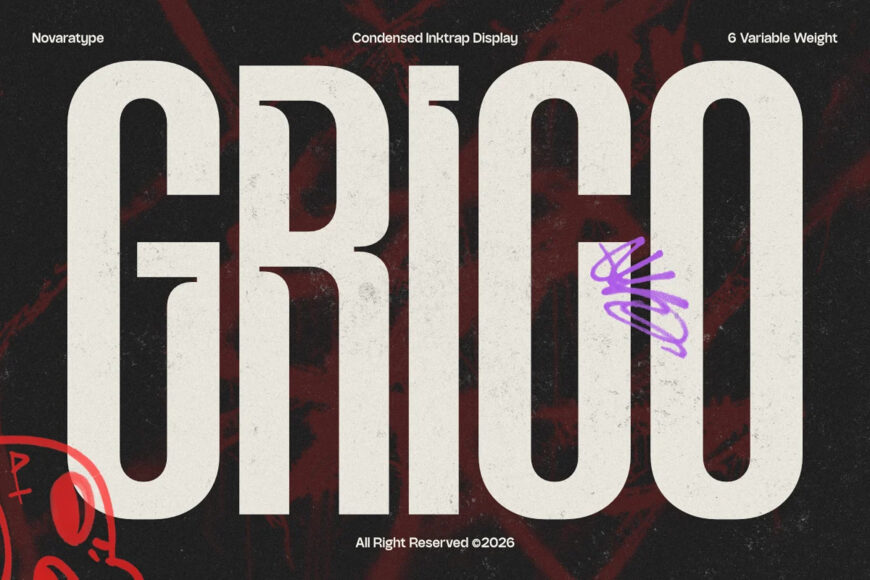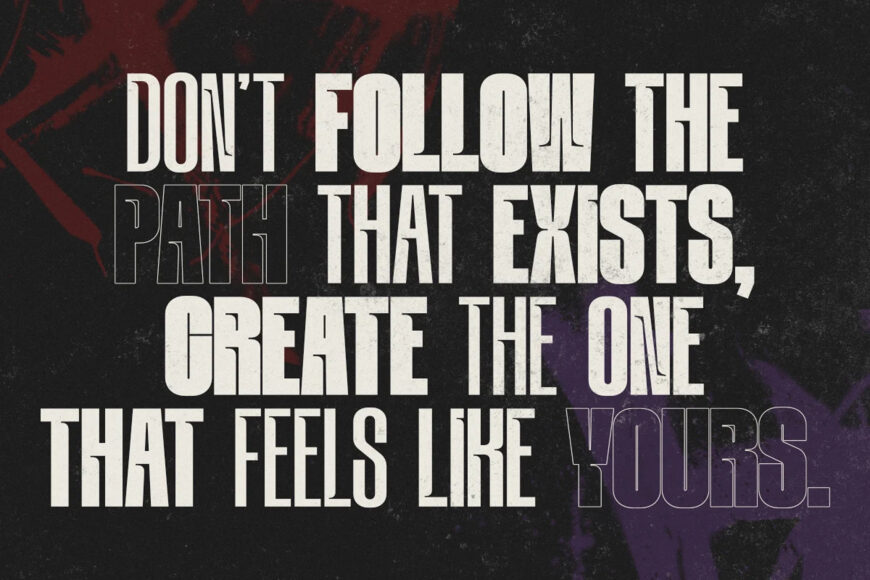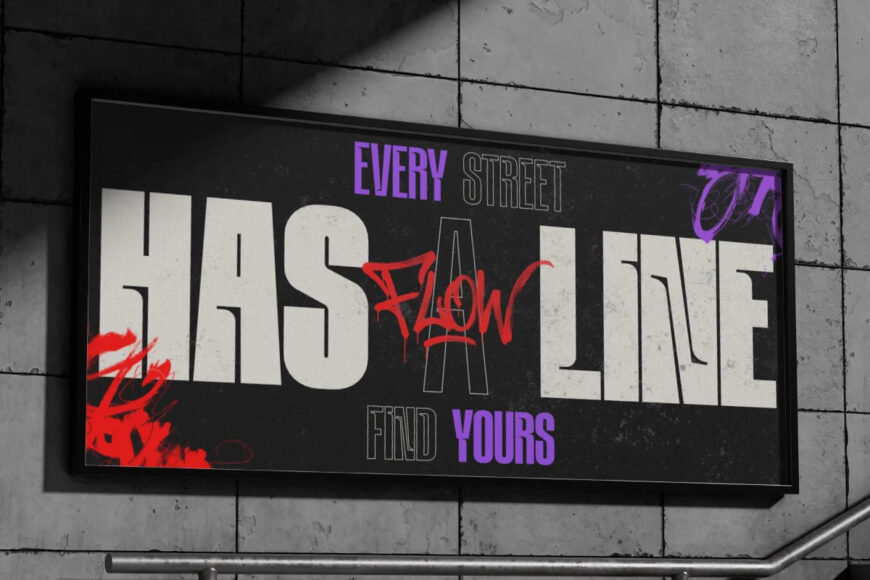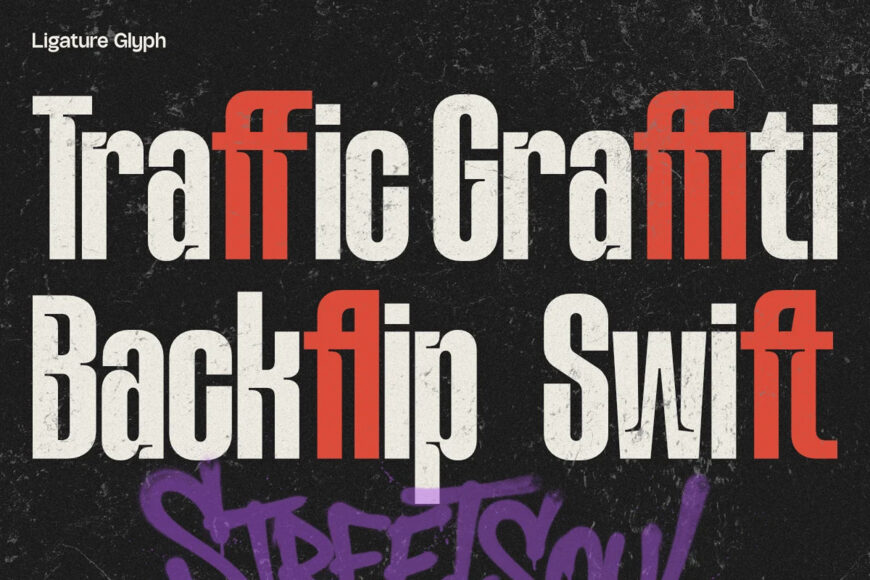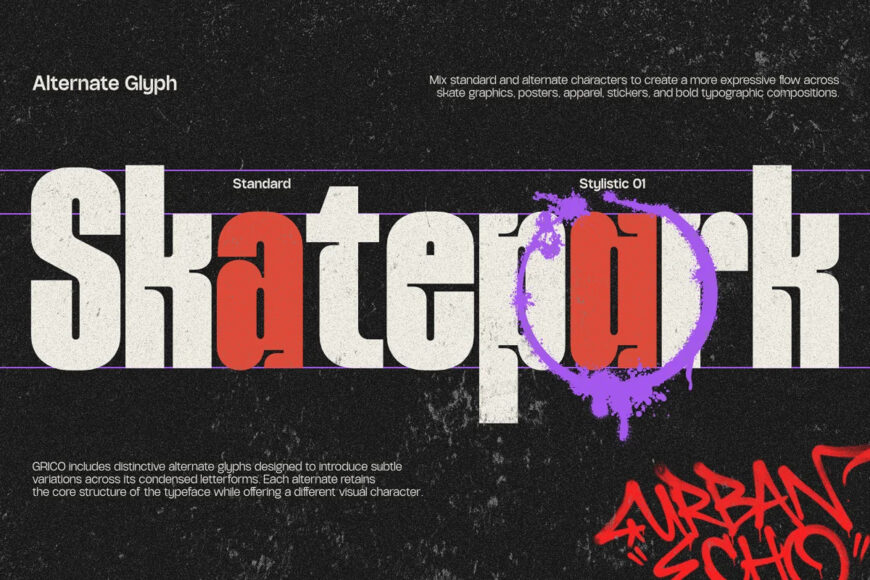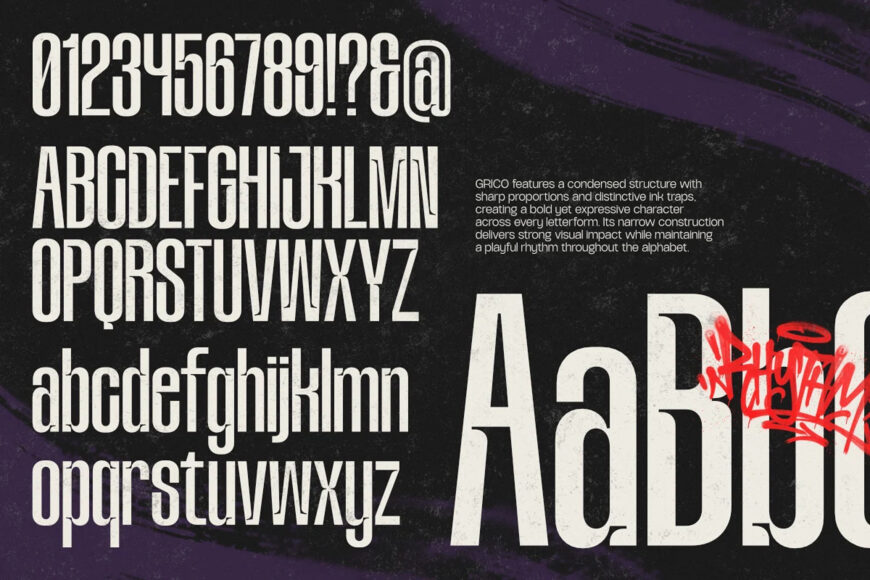
NV GRICO is a bold and distinctive type system built around narrow proportions, sharp details, and strong vertical character. Developed by NovaraType, NV GRICO is designed for headlines, posters, branding, editorial layouts, streetwear graphics, and contemporary display design.
With 6 variable weights, NV GRICO offers flexible control over typographic weight while maintaining its condensed structure and distinctive personality. Its narrow proportions allow designers to create impactful compositions while making efficient use of space.